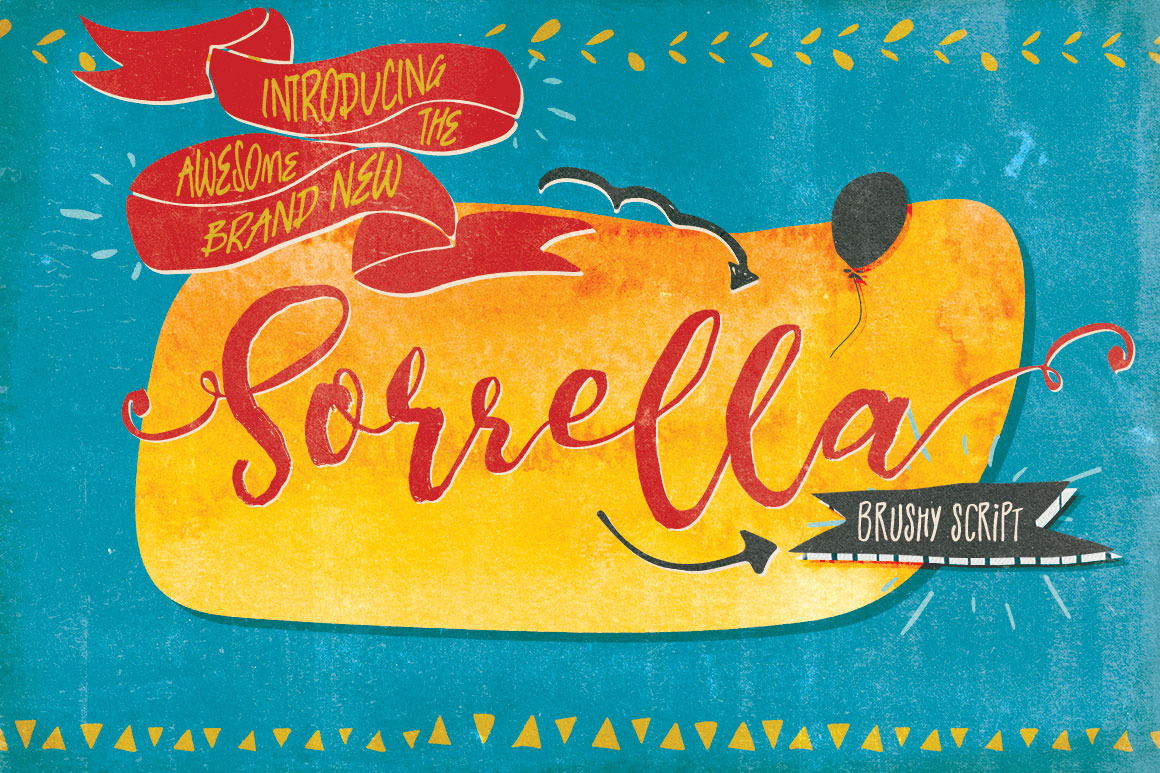
Sorrella Script Font
A brand new brush script with loads of extras - Sorrella.
This font has lots of alternates, including initial and terminal swashes and standard ligatures. Click and scroll the second preview to see all characters.